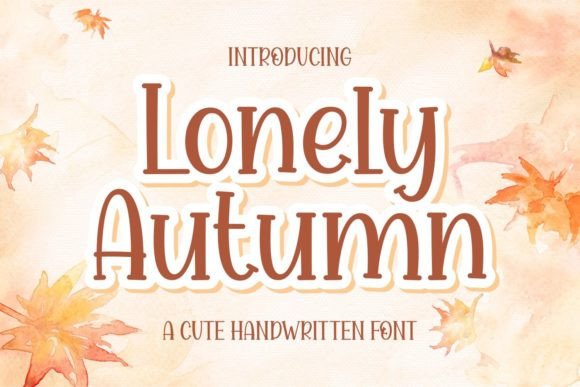
Lonely Autumn Font for Handmade Projects and More
Lonely Autumn for Greeting Cards and Personalized Stationery
Lonely Autumn is a playful and cute handwritten display font that conveys impeccable friendliness. Whether you're using it for crafts, digital design, presentations, or making greeting cards, this font brings warmth and charm to any project. For handmade greeting cards, the soft curves and friendly feel of Lonely Autumn make it perfect for birthdays, thank-you notes, or holiday messages. The font's readability ensures your words are easy to read even on small labels or stickers.
When creating personalized stationery, Lonely Autumn adds a unique touch that sets your designs apart. Pair it with clean sans serif fonts for a balanced look on invitations or packaging. This font is ideal for those who want to create a warm, approachable brand identity through typography.
Lonely Autumn for Wedding Invitations and Elegant Branding
Lonely Autumn can be a standout choice when designing wedding invitations or other event materials. Its handwritten style gives a personal, heartfelt feel that many couples find appealing. Whether you're crafting paper-based invites or digital versions, the font’s friendly appearance helps convey the joy and love of the occasion.
For boutique branding or handmade shop logos, Lonely Autumn offers an elegant yet approachable option. It works well on signage, tags, or product labels, helping to build a cohesive visual identity that resonates with customers. When paired with minimalist typefaces, it creates a stylish contrast that enhances readability and appeal.
Lonely Autumn for Product Labels and Packaging Design
Lonely Autumn is not only great for text-heavy projects but also shines on product labels and packaging design. The font’s readability makes it suitable for short phrases like "Handmade with Love" or "All Natural." Its friendly tone adds character to products such as candles, soaps, or baked goods, helping to attract attention and build emotional connections with buyers.
Whether you're selling on Etsy or at local markets, using Lonely Autumn on your product packaging can help differentiate your items from mass-produced alternatives. The font’s handwritten style aligns perfectly with the ethos of handmade and small-batch production, reinforcing authenticity and care in every detail.
Lonely Autumn for Planner Pages and Digital Printables
Lonely Autumn is a versatile display font that works beautifully in planner pages and digital printables. Its playful nature makes it ideal for monthly calendars, habit trackers, or motivational quotes. The font’s legibility ensures that even intricate details remain clear, whether printed on A4 paper or used in digital formats like PDFs or SVG files.
For creators selling printable templates, Lonely Autumn adds a charming aesthetic to layouts without compromising functionality. It pairs well with structured sans serif fonts, creating a balance between decorative flair and practicality. This font is especially useful for those who want their designs to feel both creative and professional.
Lonely Autumn for Seasonal Craft Designs and Decor
Lonely Autumn is a fantastic fit for seasonal craft designs, particularly during fall-themed projects. Its whimsical style complements autumn elements like leaves, pumpkins, or cozy textures. Use it on wall art, home decor signs, or DIY gift tags to add a personal, handcrafted feel to your creations.
When designing seasonal decorations, the font’s readability ensures that your message remains clear, even on smaller surfaces. Whether you’re creating farmhouse-style signs or festive holiday tags, Lonely Autumn brings a sense of warmth and nostalgia that resonates with many audiences.
Lonely Autumn for Creative Font Pairings and Design Assets
Lonely Autumn can be paired with various fonts to create dynamic design assets. For instance, combining it with a bold sans serif font can add structure to otherwise flowing text, while pairing it with a simple serif font can offer a more refined look. These combinations are excellent for branding, packaging, or social media graphics.
As a display font, Lonely Autumn is best suited for headlines, titles, or decorative wording rather than large blocks of text. However, its versatility allows it to be used creatively across multiple platforms—from web design to print media. Whether you're working on a logo, a tagline, or a label, Lonely Autumn provides a unique, expressive voice for your design needs.